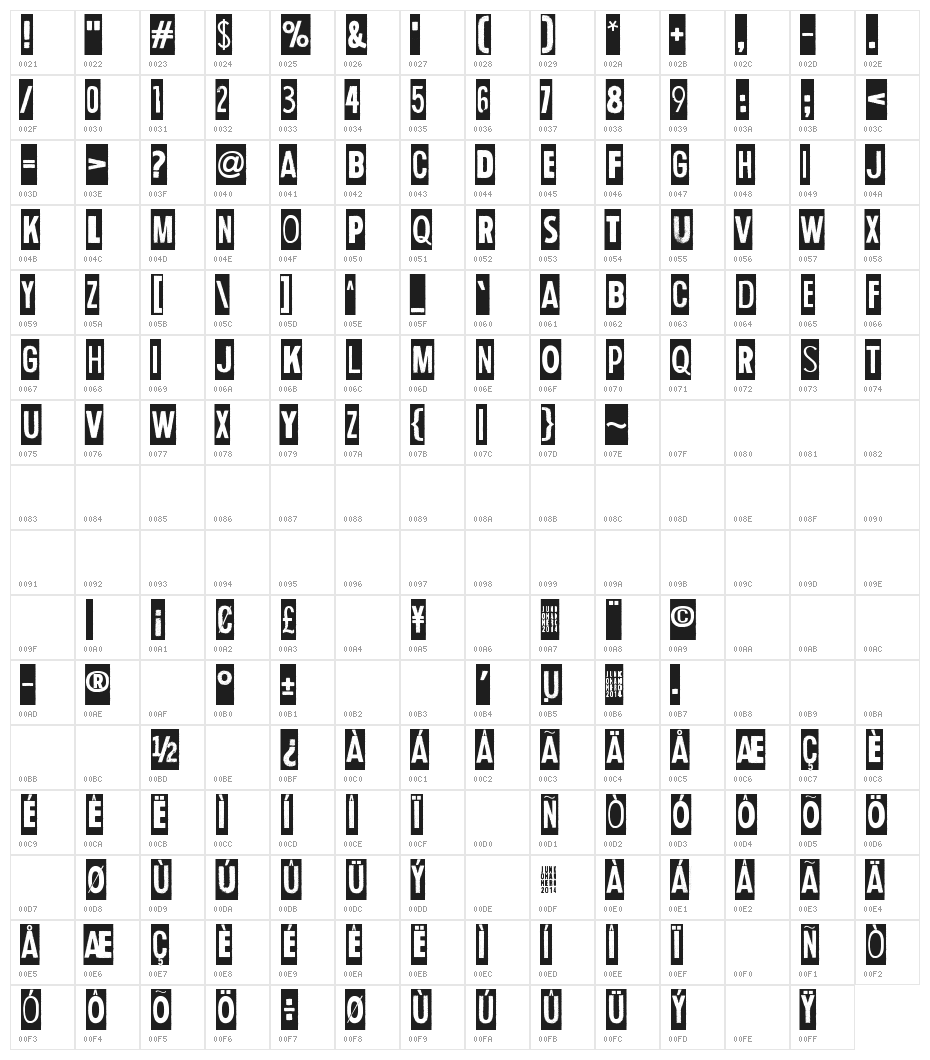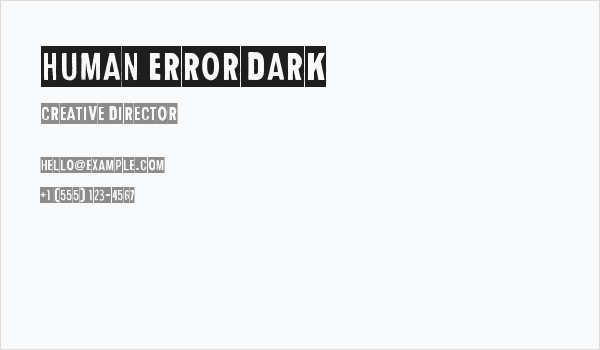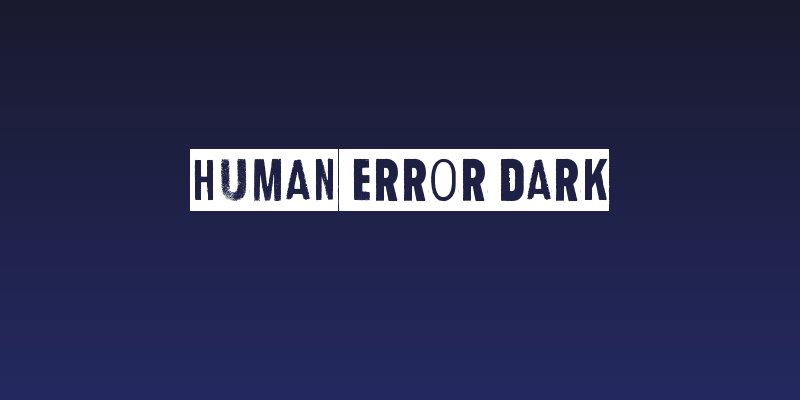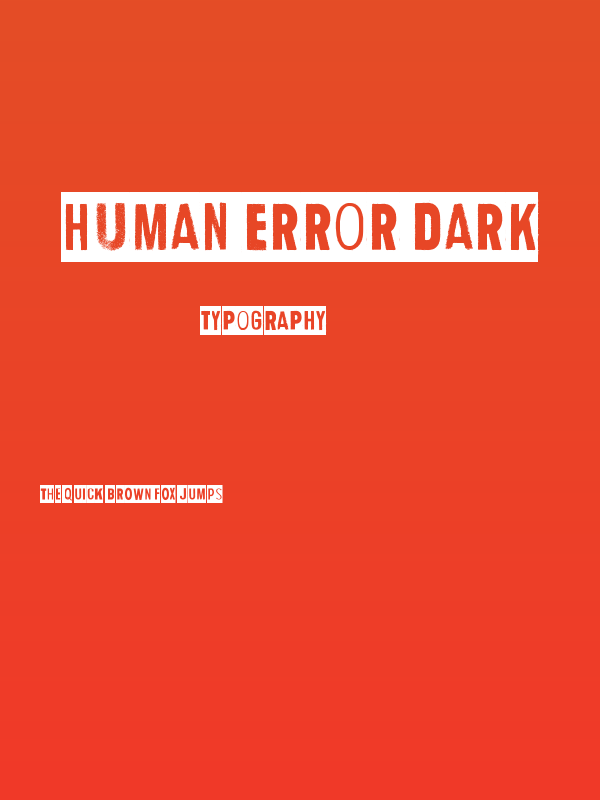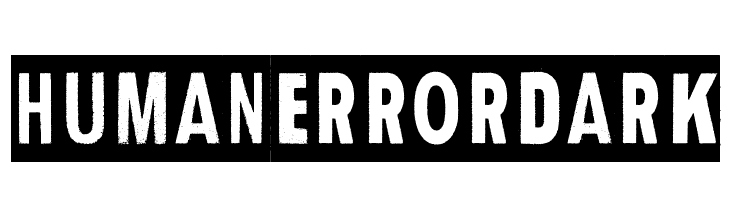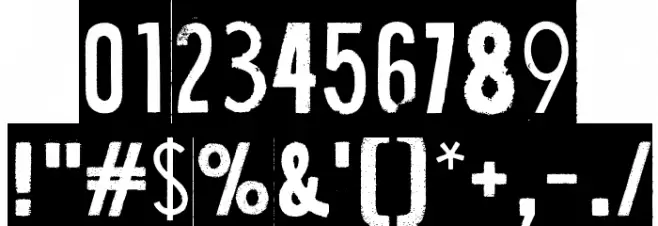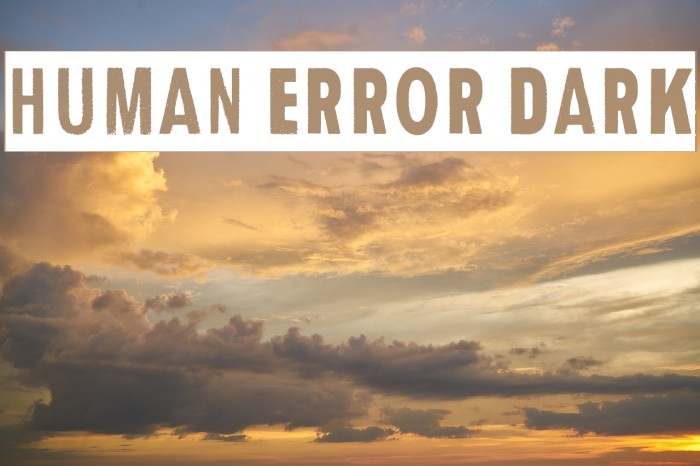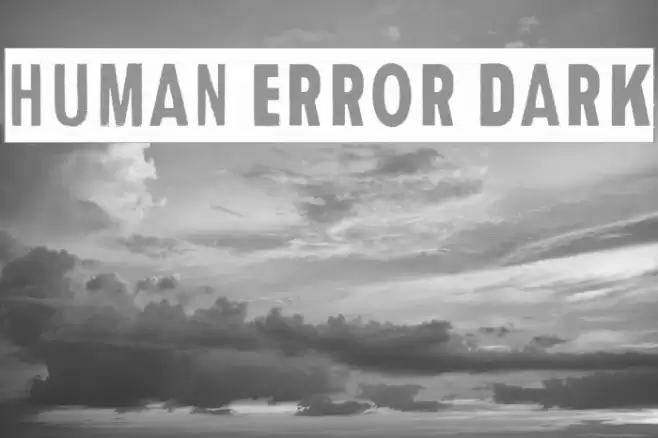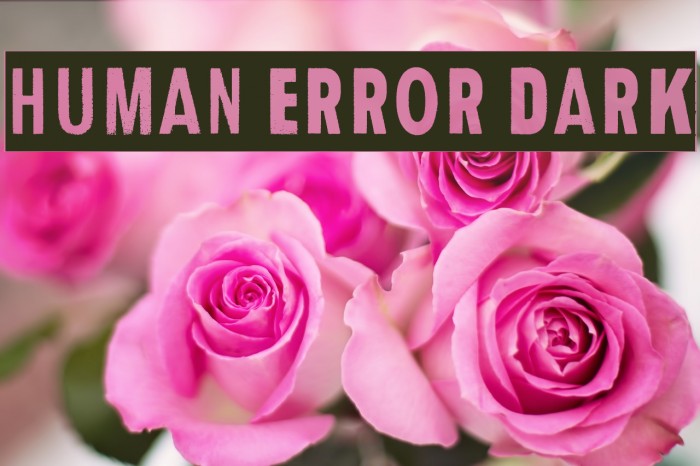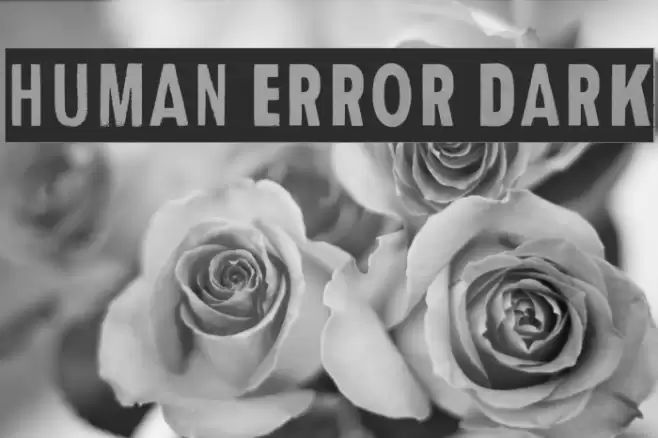
Human Error Dark Font
Human Error Dark Description
This font features a bold, distressed style with a gritty, textured appearance reminiscent of vintage typewriter or stencil fonts. The characters are uppercase and lowercase, with numerals and a variety of special characters. The design is characterized by its rough edges and uneven ink distribution, giving it a raw, industrial feel. The letters are uniformly wide, with a consistent height across the alphabet, creating a cohesive look. The font's distressed texture adds a layer of depth and character, making it suitable for projects that require a rugged, authentic aesthetic. Its boldness ensures readability, while the unique texture provides visual interest.
| Overall Style | Vintage, Industrial |
| Proposed Projects | Ideal for posters, album covers, branding for edgy or industrial-themed products, and any design requiring a vintage or rugged aesthetic. |